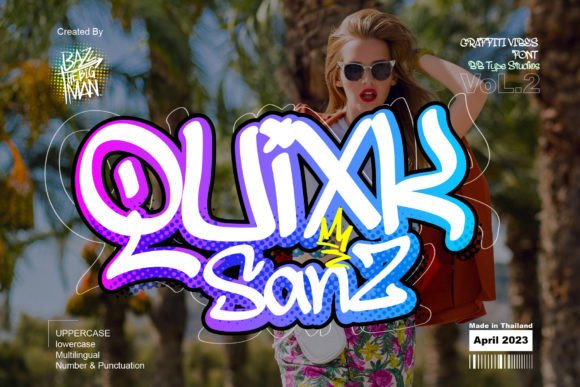
Embrace the urban pulse with Quixk Sanz, an extraordinary display font that exudes the energy of street art. Dive into a world of creativity and let your designs speak with an authentic voice. Composed by the talented BB Type Studios, this font ignites a revolution in visual expression, captivating your audience with its raw and rebellious spirit.
Quixk Sanz isn't just a font; it's a testament to the power of individuality. With its graffiti-inspired strokes and bold stance, this font breaks free from convention, allowing you to make a statement that resonates. Imagine your designs adorned with Quixk Sanz, commanding attention with its unapologetic style. Whether it's t-shirts, sportswear, logos, advertisements, clothing, or anything else your imagination can conjure, Quixk Sanz will elevate your designs to new heights.
Unleash your inner artist and harness the untamed energy of Quixk Sanz. This font beckons you to explore the unexplored, to push boundaries and challenge norms. Its unique charm will infuse your designs with a captivating allure, attracting eyes and hearts alike. Don't settle for ordinary fonts; embrace the extraordinary with Quixk Sanz and watch your designs come alive with unparalleled vigor.